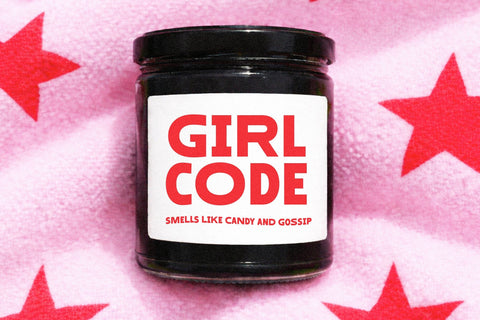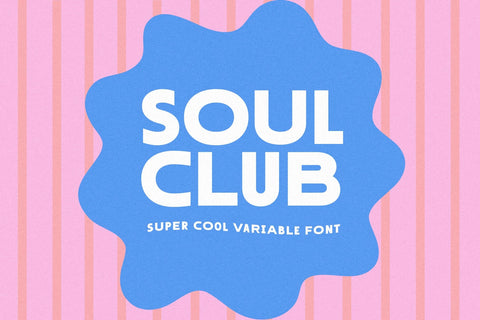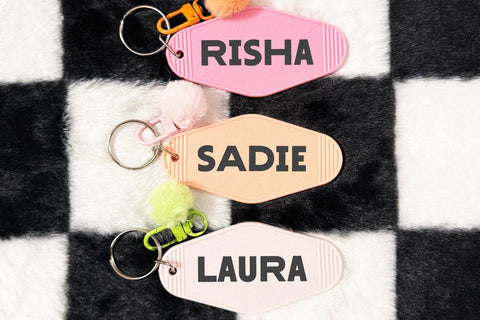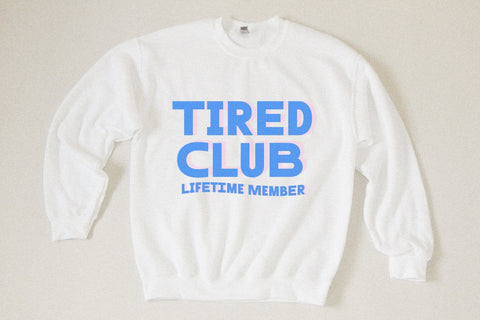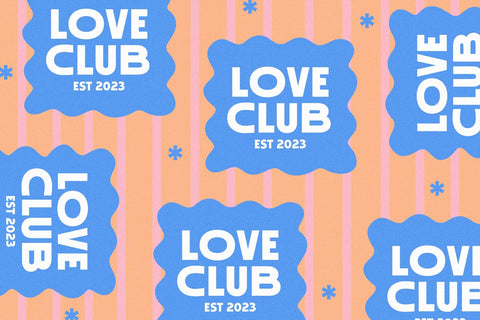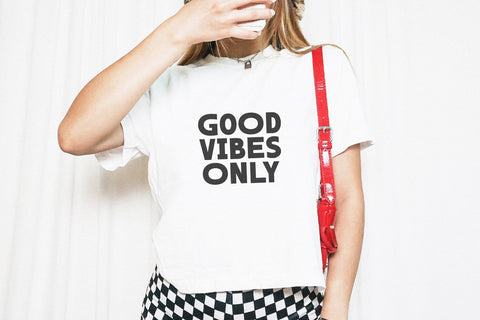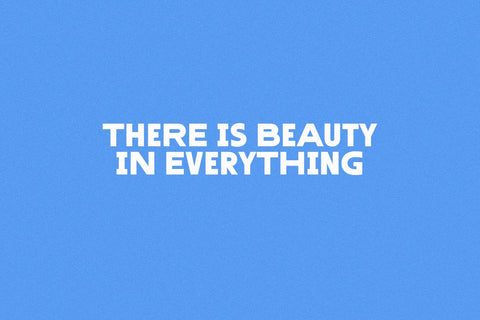
Soul Club - Trendy Sans Font
Soul Club is a trendy sans font with wide and condensed letters.
This font is perfect for logos, cricut projects, canva, painted banners, lasers, goodnotes, teachers, svg files and more!